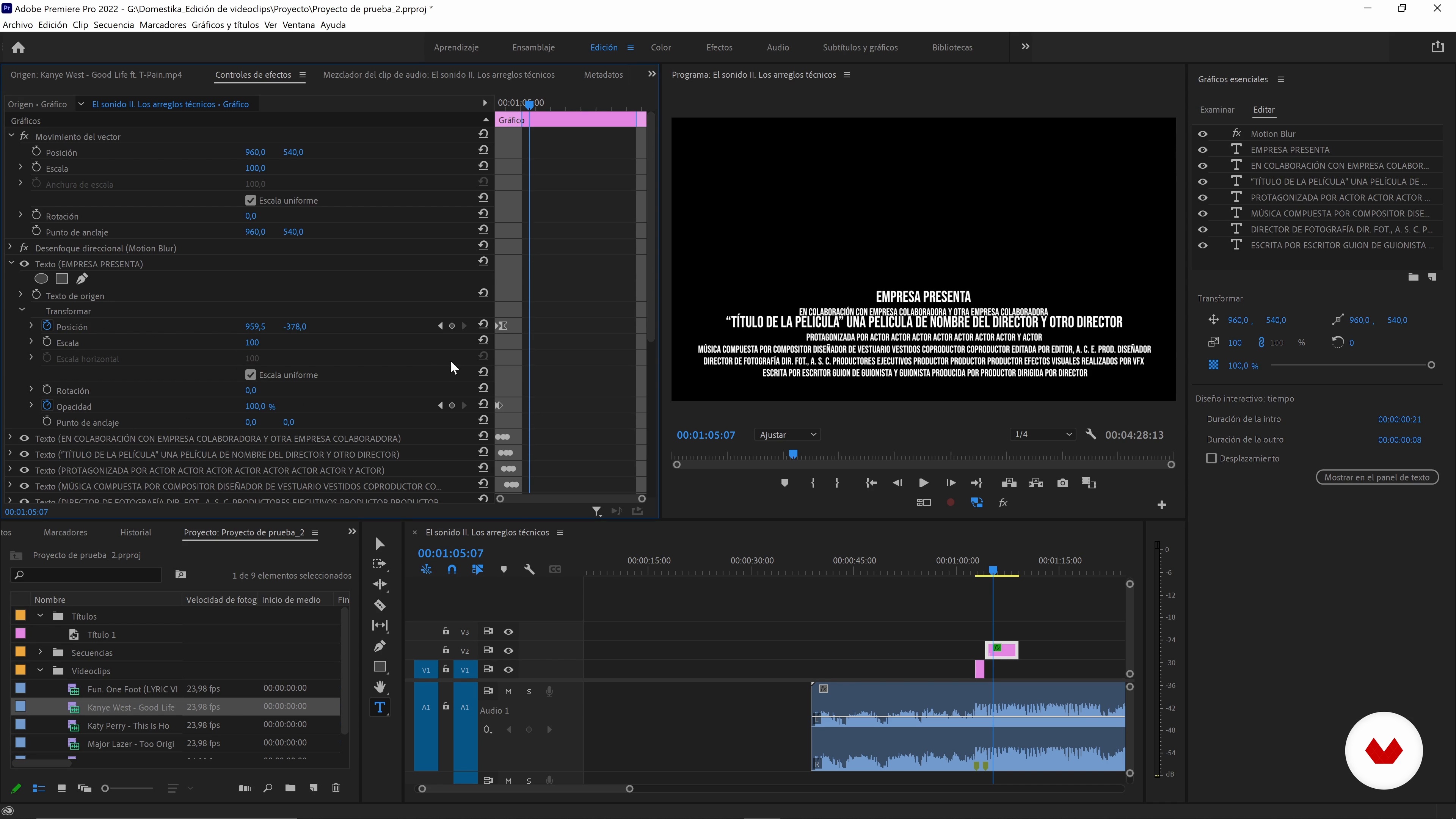
Title: fonts and rhythm
About the video: Title: fonts and rhythm
“A typography according to the video, a rhythm or an animation style can completely change a video. A few suitable titles are the icing on the cake. Let's see why!”
In this video lesson Juanmi Cristóbal addresses the topic: Title: fonts and rhythm, which is part of the Domestika online course: Editing and Post-Production for Video. Learn to translate the stories, emotions, and messages of a song into a video clip with a professional feel.
“Well. the time has come to title. Keep in mind that a well-chosen typography. a color that matches the video. or a rhythm that aligns with the pace we've set in the video can completely change our project's aesthetics. that is. its impact. Let's see how. I'll teach you how to create Titles using Adobe Premiere software. To give our project that fully professional look so it appears exactly as we've worked on it until now. that is. perfect. To accomplish this goal. let's examine several key aspects and considerations. Initially. i will demonstrate the various methods we possess for this task...”